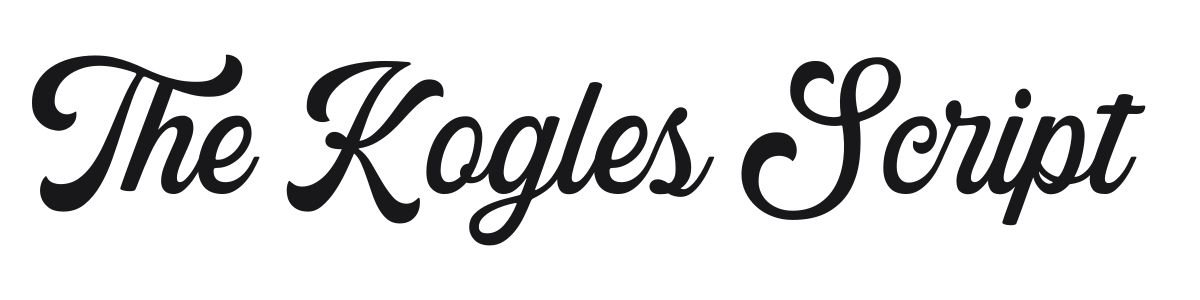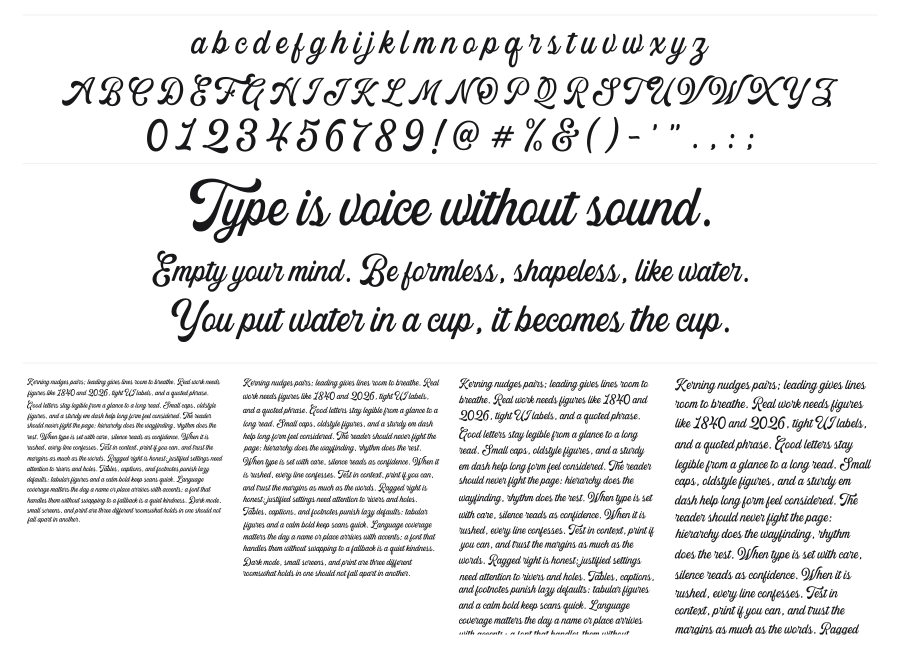
The Kogles Script
The Kogles Script is a bold, flowing casual script with the confident stroke of vintage sign painting. Its thick connected letters and looped terminals carry a warm, mid-century Americana energy that works naturally across logos, packaging, and poster headlines. The generous weight and smooth rhythm make it feel handcrafted without being rough.